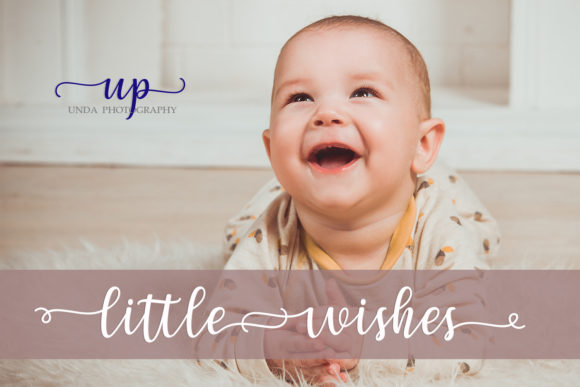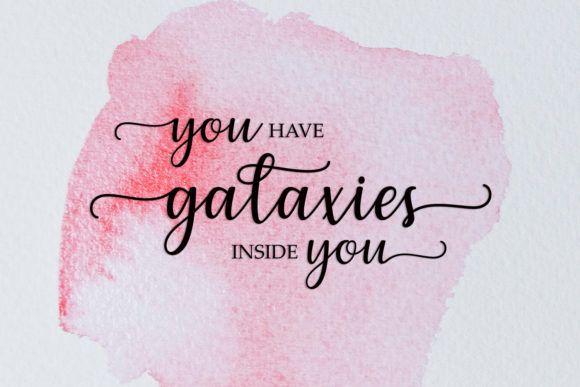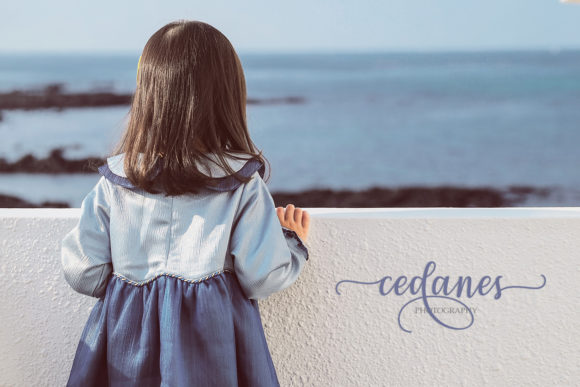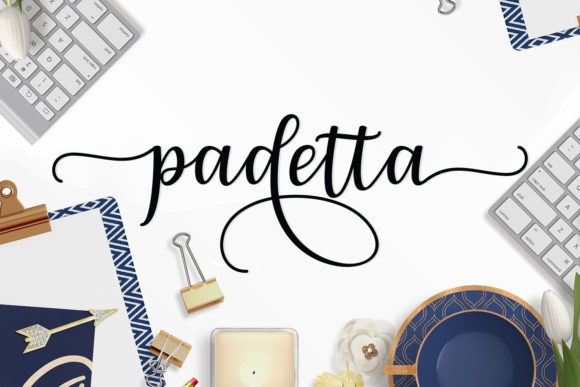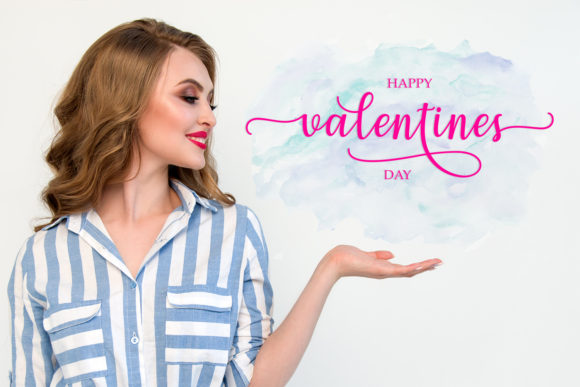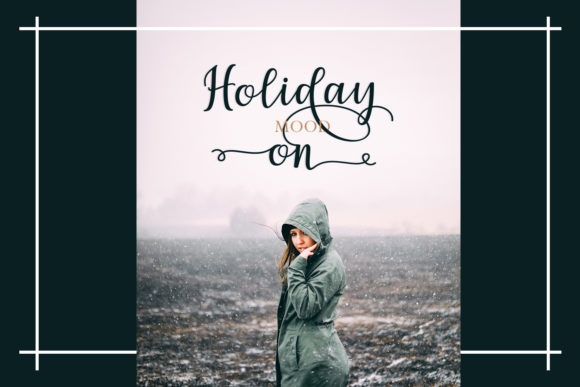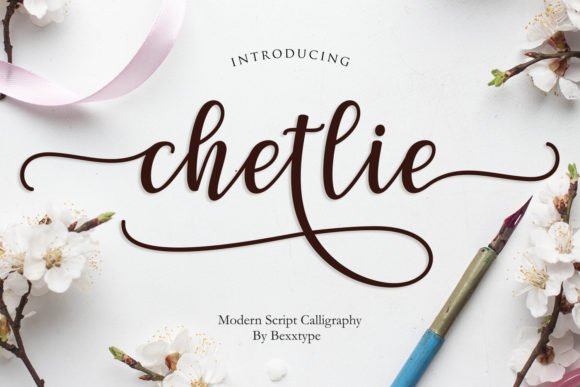
Unleash Your Creativity with the Charming Chetlie Script Font
Have you ever sat down at your desk, surrounded by blank sheets of paper, and suddenly, the perfect idea strikes you? The words flow effortlessly, and your imagination runs wild. This is exactly the kind of creative moment that Chetlie Script Font is designed to spark. With its fresh and modern script style, this beautiful font is perfect for designers looking to add a touch of elegance and sophistication to their projects.
Chetlie Script Font is more than just a pretty face – it’s a powerful tool for creatives. Its handmade calligraphy style and decorative characters make it perfect for a variety of projects, from wedding invitations to social media graphics. With its dancing baseline, this font adds a playful touch that’s sure to engage your audience. Whether you’re a seasoned designer or just starting out, Chetlie Script Font is a valuable addition to your toolkit.
Chetlie Script Font Key Features
• Font Style: A beautiful, elegant script font perfect for creative projects and designs.
• Unique Characteristics: Features a unique, handwritten feel with subtle flair and connection between letters, adding a touch of personality to any design.
Designer Review: Chetlie Script Font
Overall, I have mixed feelings about the Chetlie Script Font. It has some lovely characteristics, but also some drawbacks that make it less than ideal for some projects.
• The elegant and whimsical feel of the font makes it perfect for creative and artistic projects.
• The script style adds a touch of sophistication and elegance to any design.
• The font is highly legible, even at smaller font sizes.
• The font lacks consistency in its letter spacing, which can make it difficult to read at times.
• The x-height is slightly inconsistent, which can make it harder to achieve perfect alignment in multi-line text.
• The font is not ideal for body text, as it can be overwhelming and tiring to read for extended periods.
Overall, the Chetlie Script Font is a beautiful addition to any design arsenal, but it’s best suited for projects where it can shine as a headline or title font. With some careful consideration and selection of font sizes and styles, it can add a touch of magic to your designs.
Chetlie Script Font is ideal for creating elegant and sophisticated designs. Use it for wedding invitations, baby announcements, or other special occasions. To get the most out of the font, use it sparingly and in combination with other fonts to create visual interest.
Experiment with different font sizes, colors, and styles to create unique and eye-catching designs.